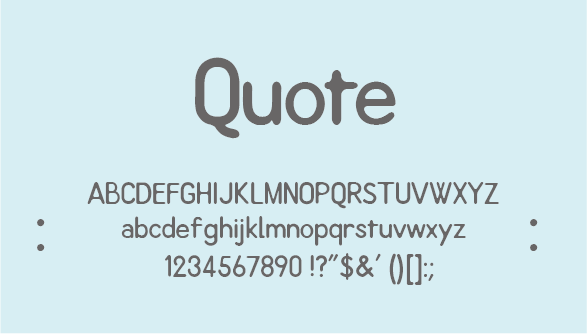
Font name: | Quote |
Author: | Yosuke Masaki |
Note by Yosuke Masaki | |
Quote is the new font what was rounded off the corners. Character changes with the scenes to be used. |